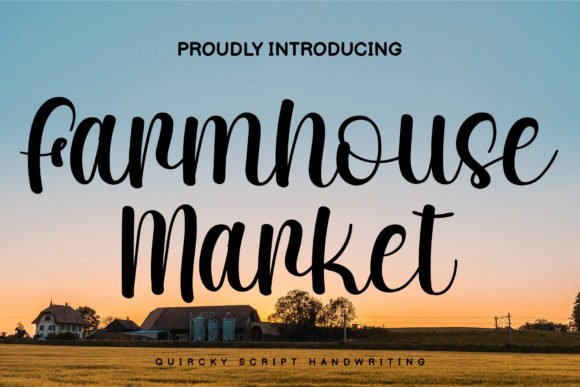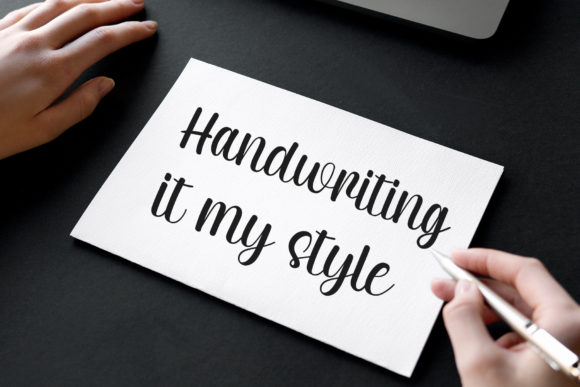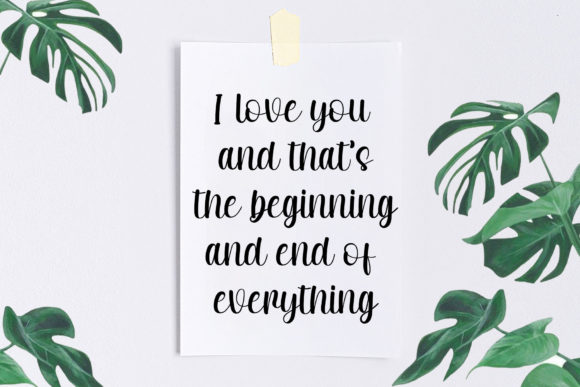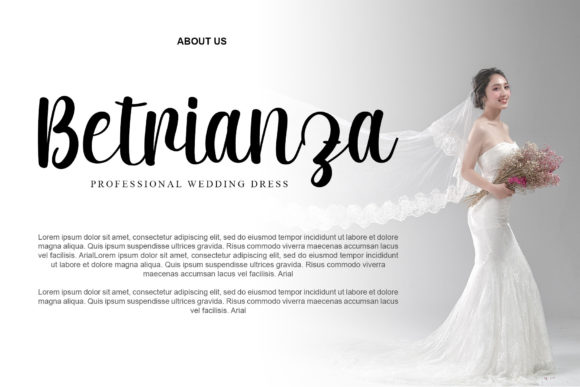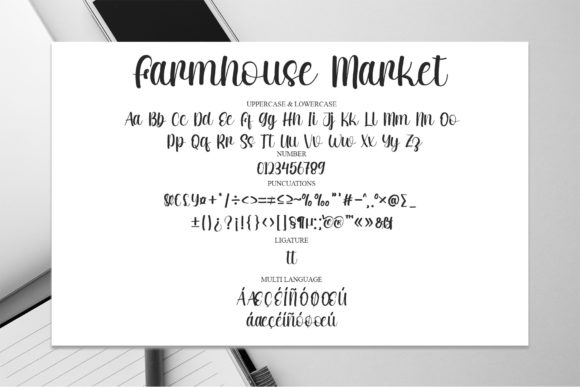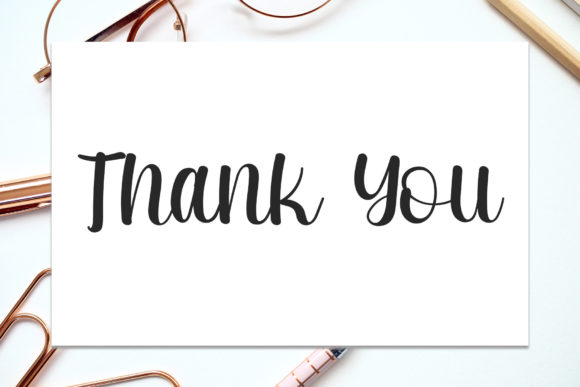
The Perfect Touch of Whimsy: Farmhouse Market Font
Remember that moment when you’re scrolling through Pinterest, and you stumble upon a beautifully designed wedding invitation that stops you in your tracks? The perfect blend of elegance and rustic charm has you swooning, and you can’t help but wonder how to recreate that magic in your own designs.
Enter the Farmhouse Market Font, a stylish and trendy script font that’s perfect for adding a customized touch to your projects. Whether it’s a wedding invitation, a thank you card, or a business logo, this font is sure to bring a touch of warmth and personality to your designs. As a designer, you know how valuable it is to have a versatile font that can elevate your work and make it stand out from the crowd.
Farmhouse Market Font Key Features
- Font Family: A unique, custom-designed font family with 6 styles (Thin, Light, Regular, Medium, Bold, Black)
- Character Set: Supports a wide range of characters, including Latin, Cyrillic, and Greek alphabets, as well as punctuation and symbols
- Size and Resolution: Designed to be highly legible at various font sizes, with optimal readability at 12-24 points and 300-600 DPI (Dots Per Inch) resolution
- Unique Characteristics: Distinctive, rustic feel with a mix of vintage and modern elements, perfect for creating a warm and welcoming atmosphere in branding, packaging, and advertising
Farmhouse Market Font Review
I recently had the chance to work with the Farmhouse Market Font, and I must say it’s a charming addition to any design project. Here’s my honest take on this font.
- ✨ Friendly, approachable feel: The Farmhouse Market Font exudes a warm, inviting atmosphere that’s perfect for designs related to food, home, or family.
- ✨ Beautiful script connections: The connected script style makes for a lovely, flowing text that’s easy to read.
- ✨ Wide range of language support: The font supports a variety of languages, making it a great choice for multilingual designs.
- ⚠️ Limited font weights: The font family only includes a few weights, which might limit its versatility for designs requiring more variation.
- ⚠️ Not ideal for small text: The font’s script connections can make small text difficult to read, so it’s best used for headings and larger text.
The Farmhouse Market Font is a lovely addition to any design project that requires a warm, inviting atmosphere. While it has some limitations, its friendly feel and beautiful script connections make it a great choice for the right projects.
Tips for Getting the Most Out of Farmhouse Market Font
For a more authentic look, pair Farmhouse Market Font with distressed textures and vintage graphics.
Farmhouse Market Font is ideal for:
- Rustic-themed branding and marketing materials.
- Vintage-inspired wedding invitations and stationery.
- Rural-themed websites and e-commerce platforms.